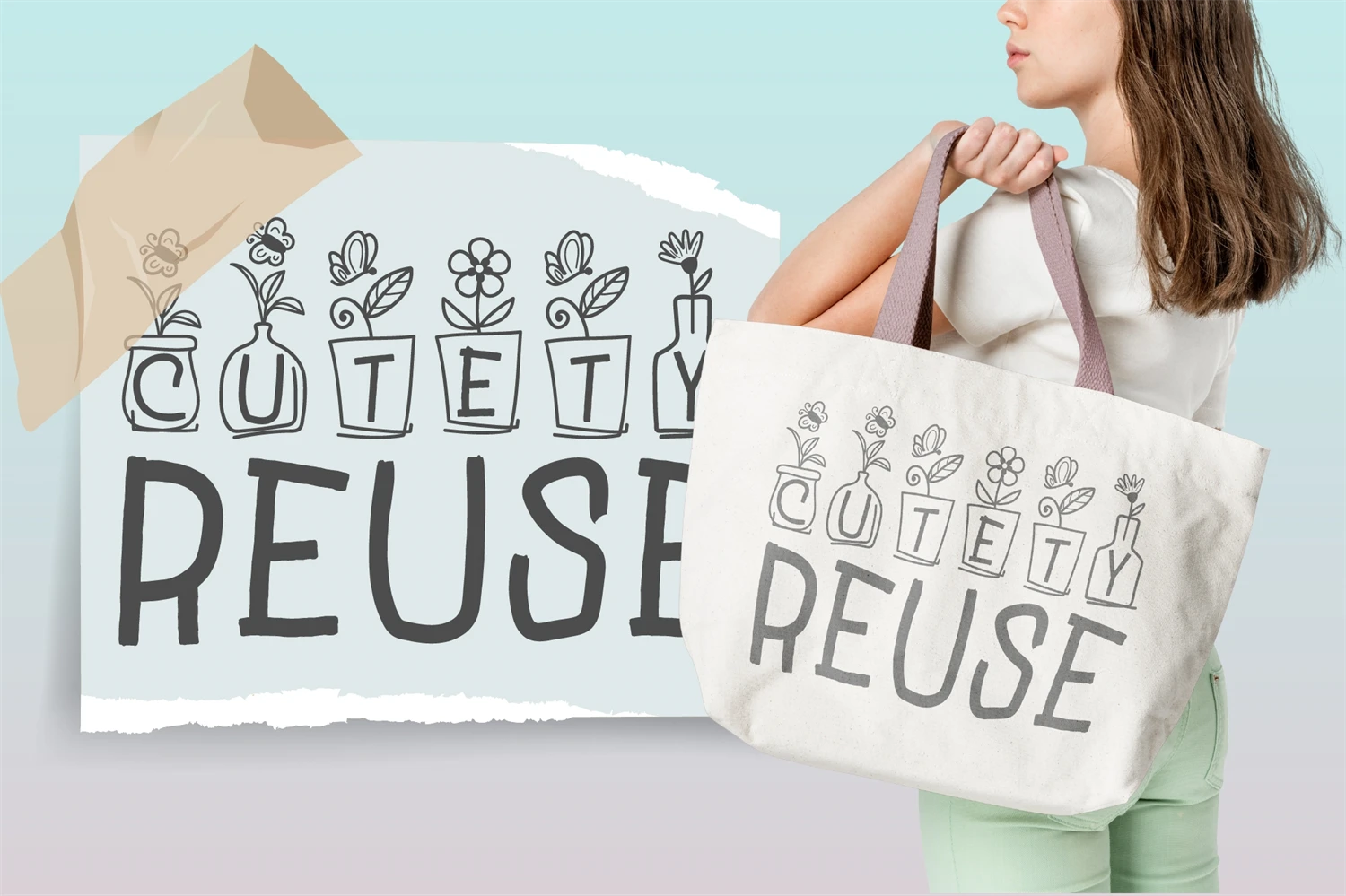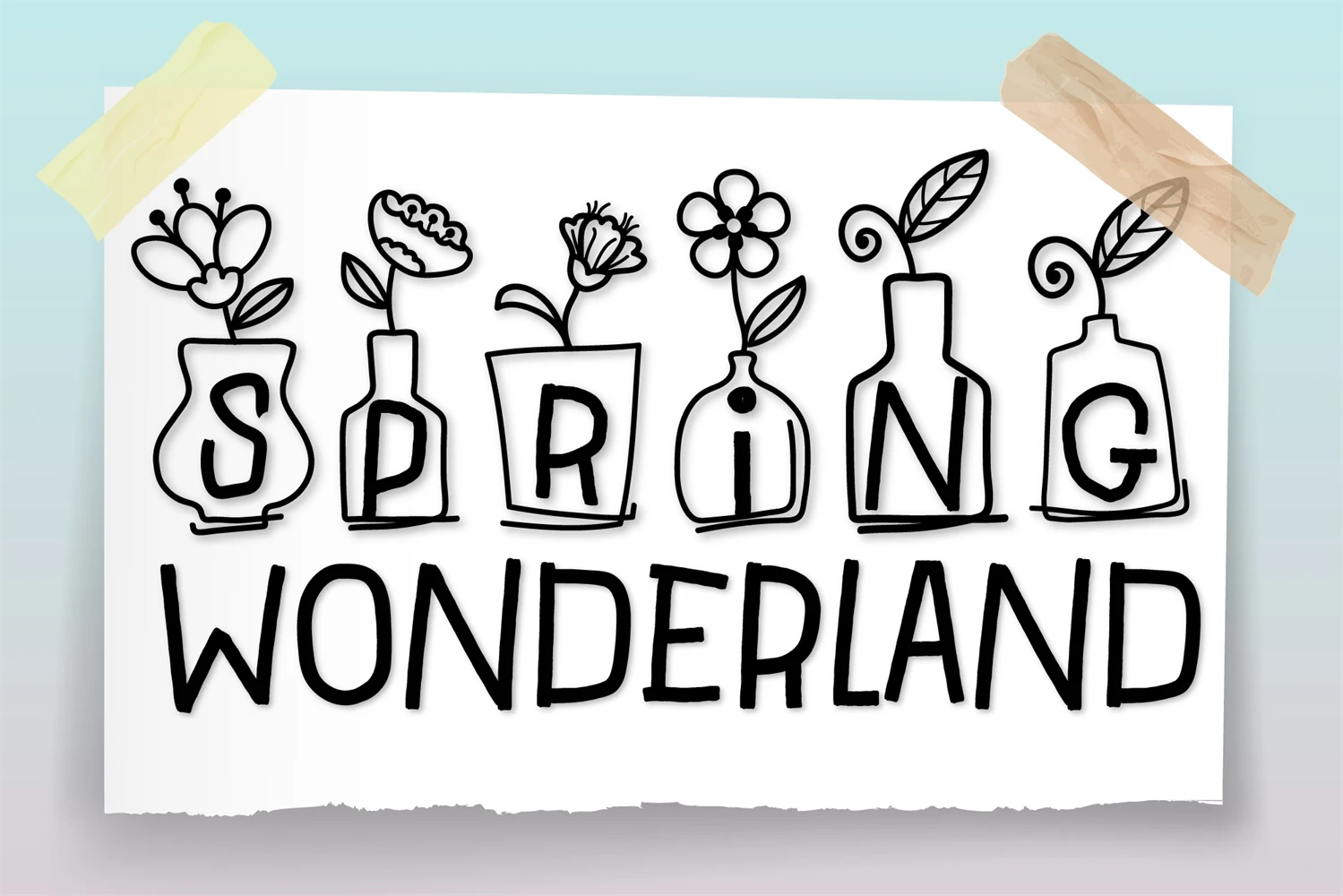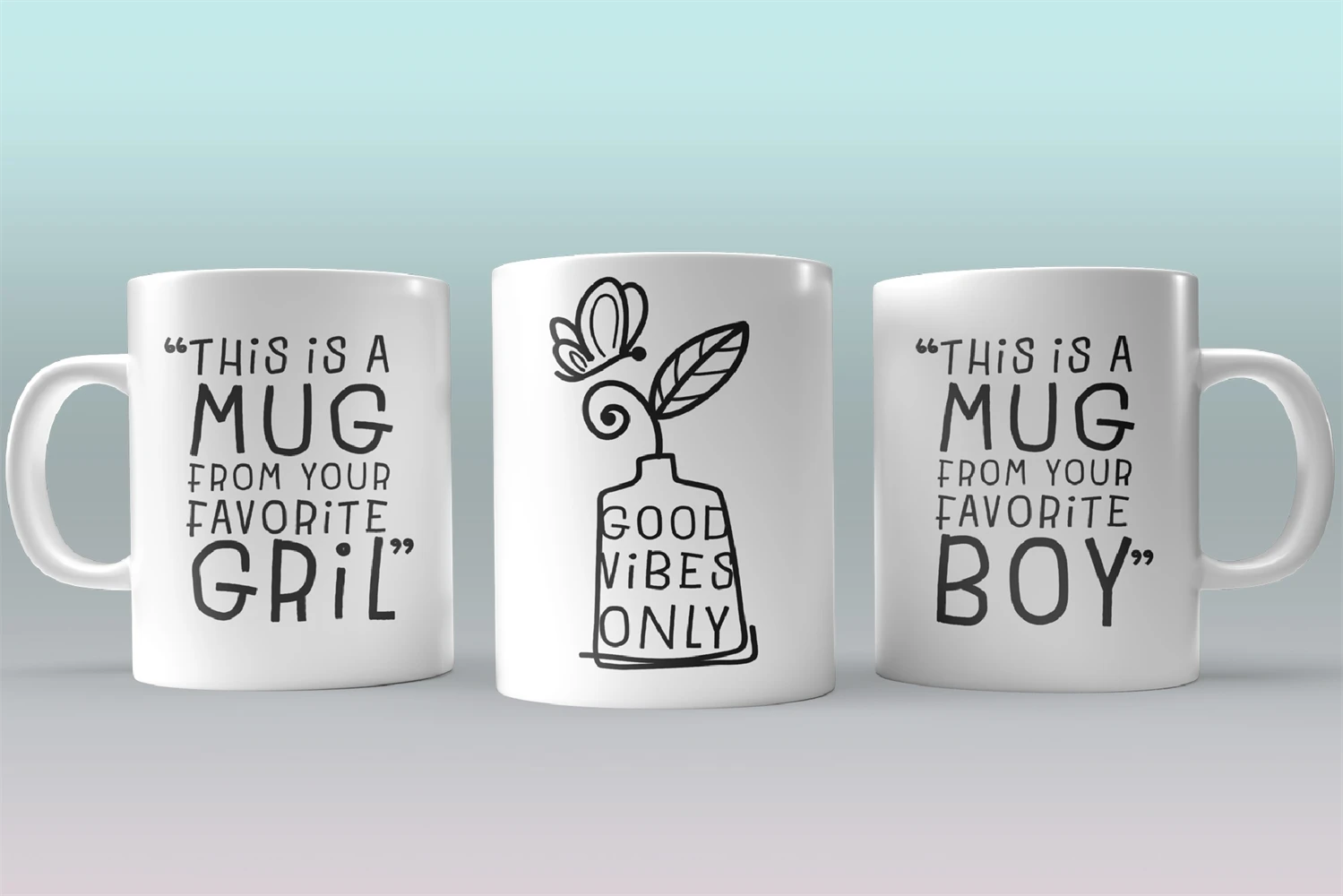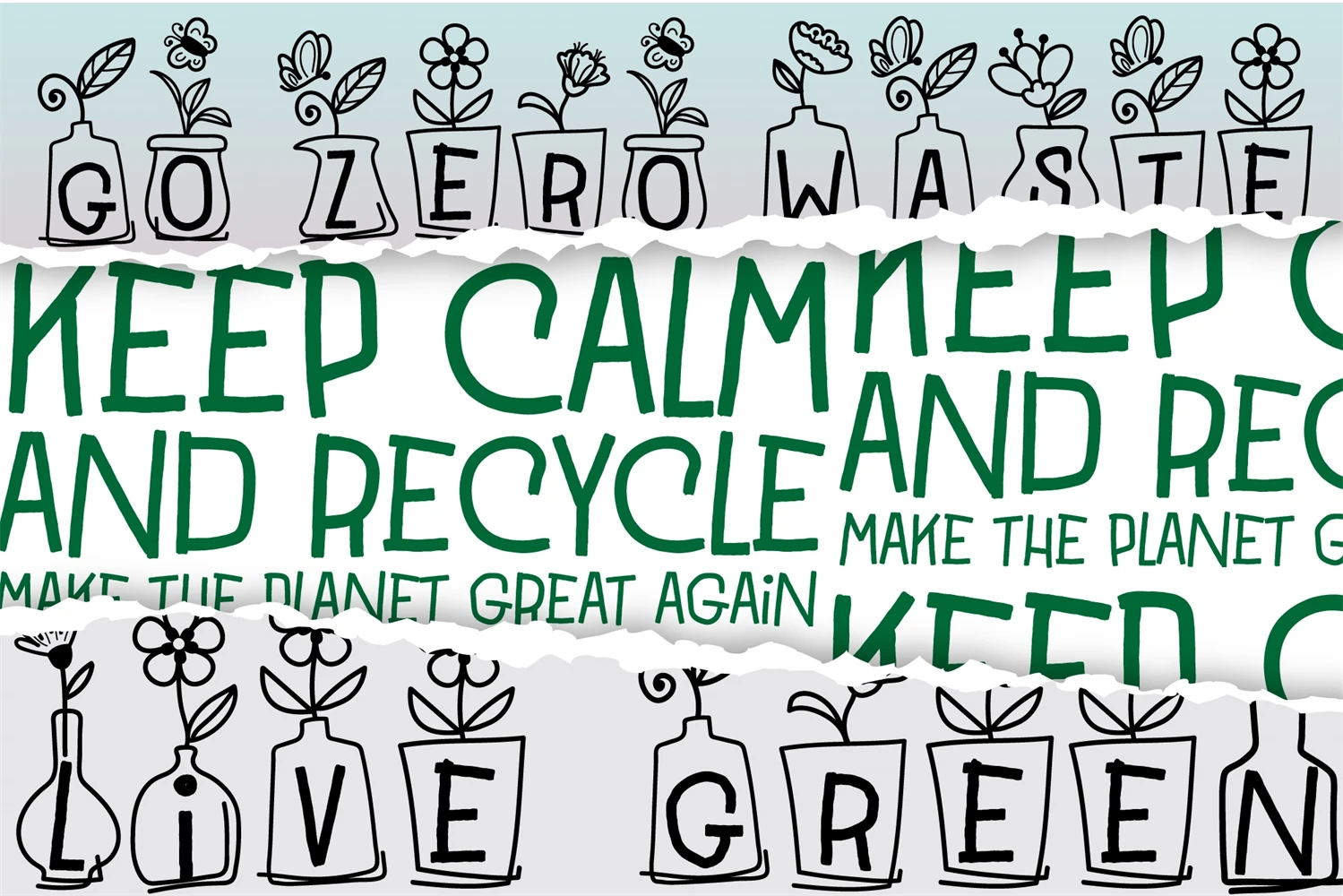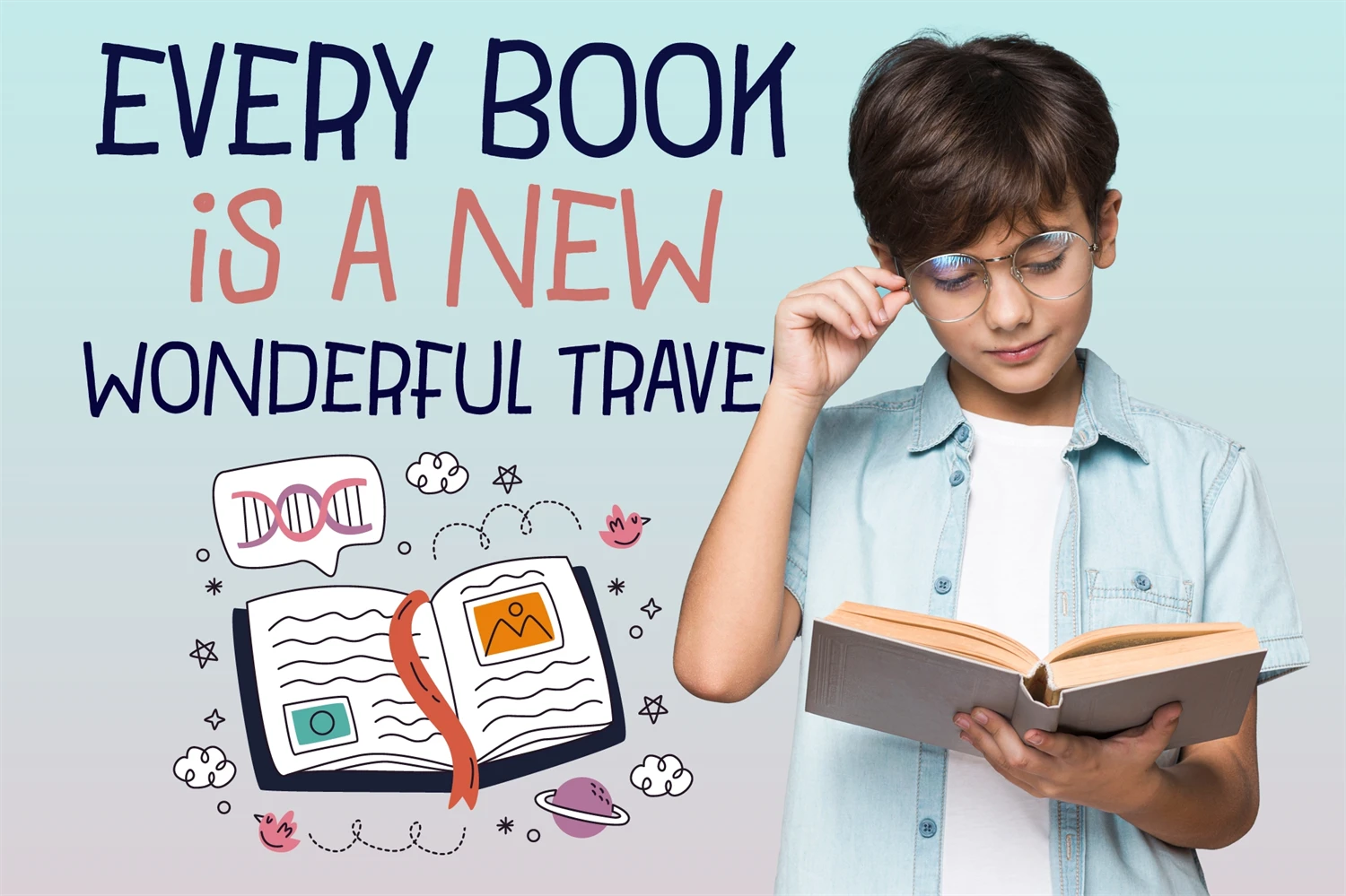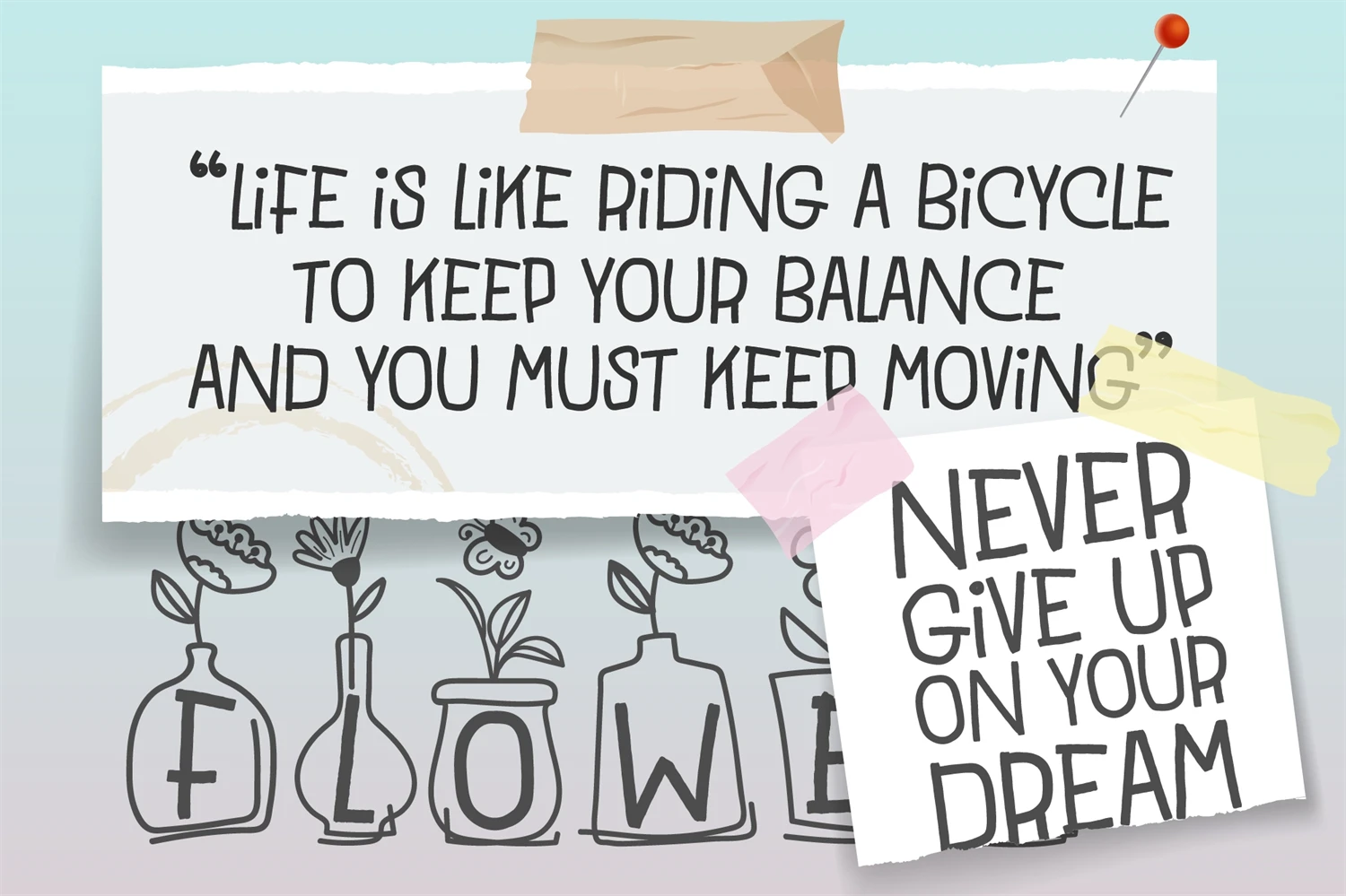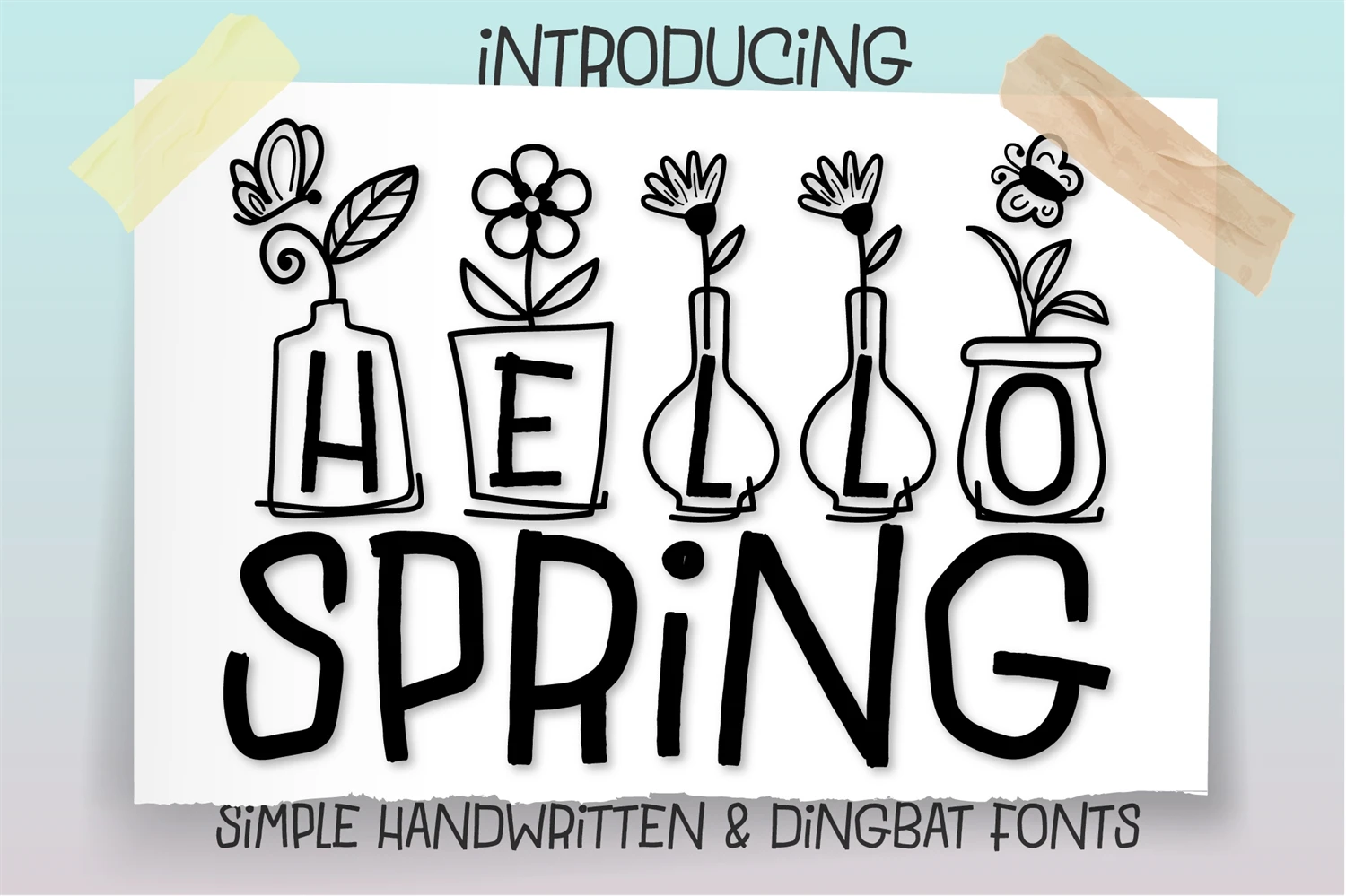
Hello Spring is a fun and playful trio font (Dingbats, decorative and handwritten.) The handwritten characters are casual and quirky, while the decorative characters embody endless fun in farmhouse-related objects. Get creative, and use this font to create something spectacular!
Hello Spring Fonts